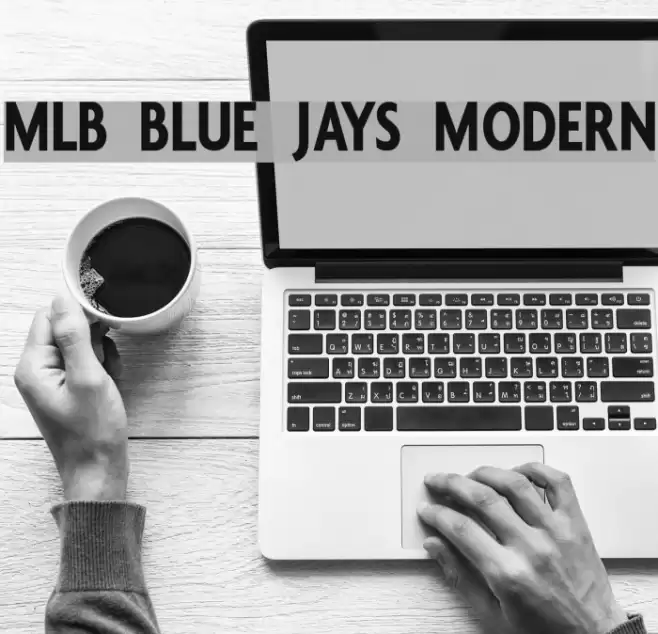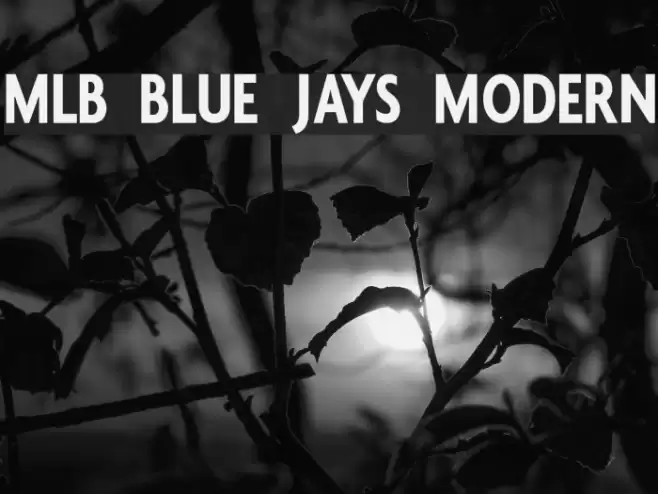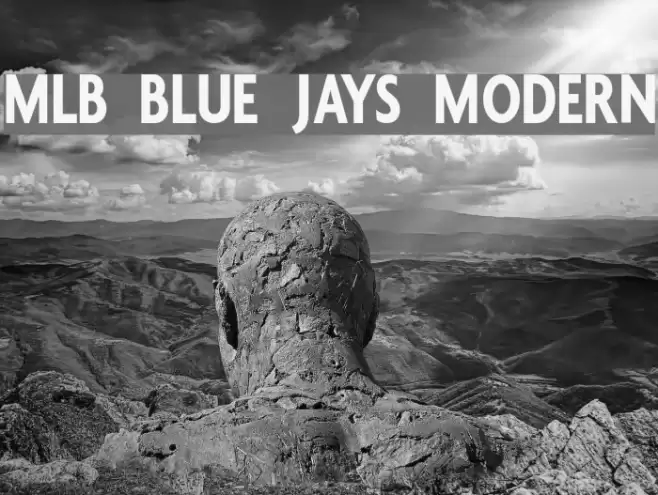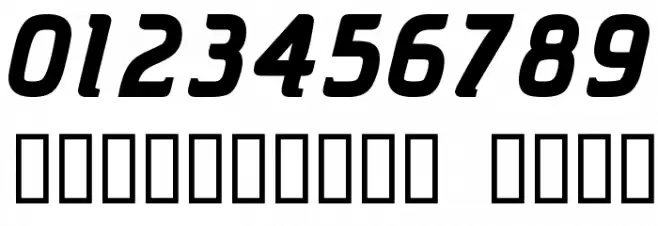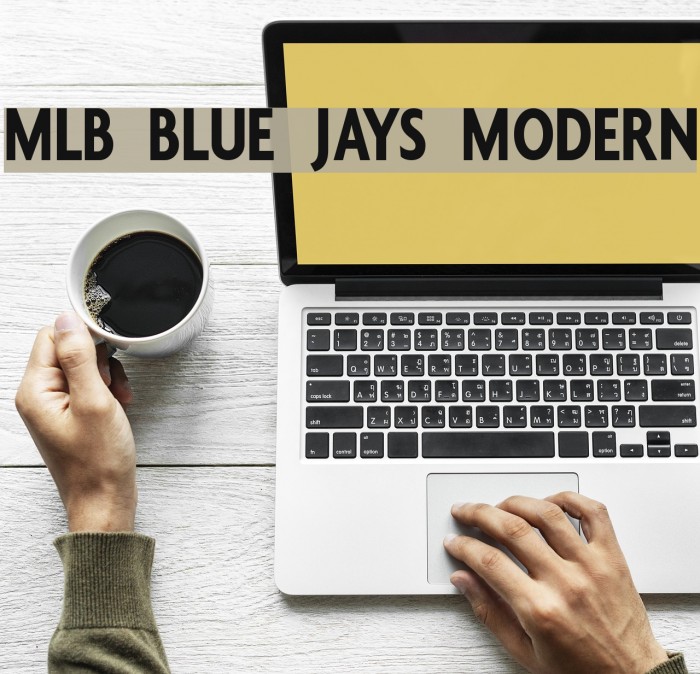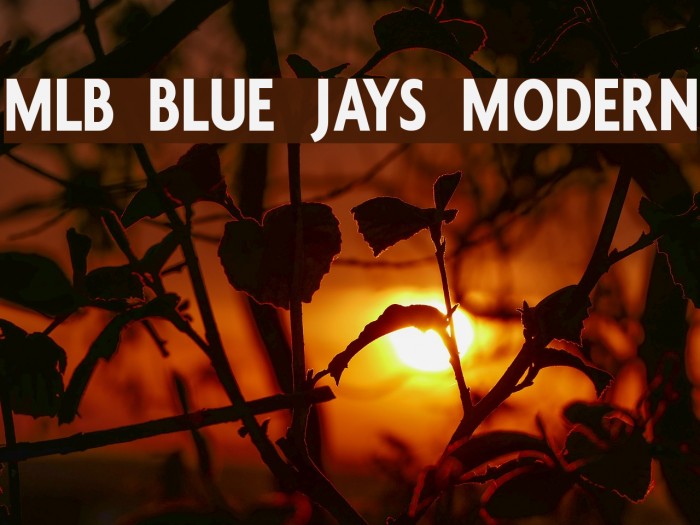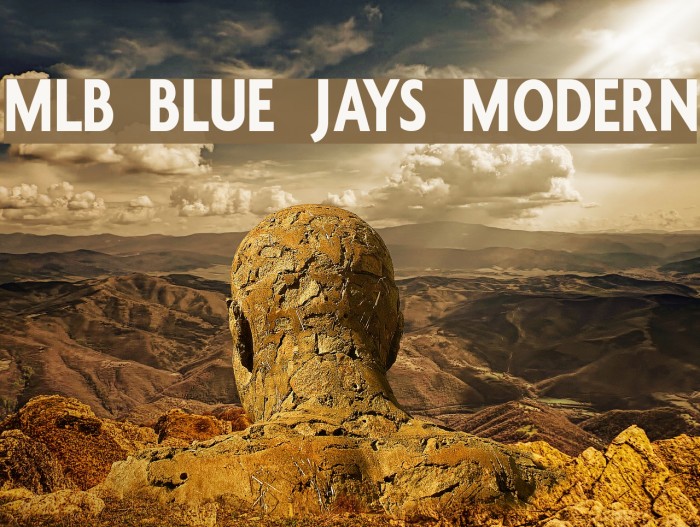
MLB Blue Jays Modern Font
MLB Blue Jays Modern Description
This font features a bold and modern design with a strong presence, making it ideal for impactful headlines and branding. The uppercase letters are slightly condensed, giving a sleek and professional appearance. The numerals are dynamic and slightly italicized, adding a sense of motion and energy. The overall style is clean and contemporary, suitable for sports-related themes or any project requiring a bold statement. The character spacing is normal, ensuring readability while maintaining a compact look.
A bold, modern font with a sleek and professional appearance from Uncategorized fonts.